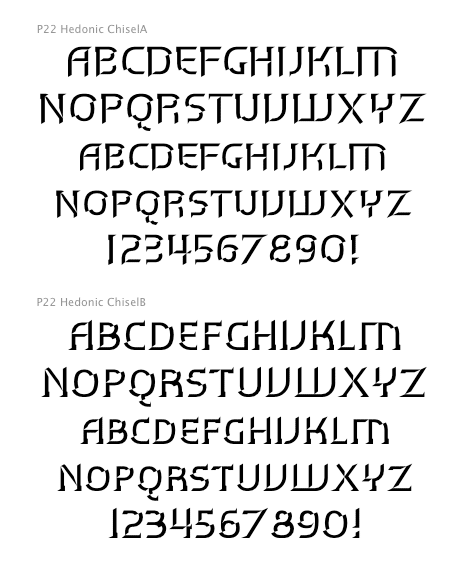
Hedonic Chisel Set (3 fonts) (International House of Fonts)
Hedonic has just a hint of a slab serif and even that is used so sparingly that it almost feels like a sans serif font.It's design does appear to be painfully simple but there are many interesting features including a selection of weights,small caps with old style numerals and display weights that make it very useful.And legible.The lower case small caps match the x height of the roman weights and the caps are 75% of the cap height – providing three different evenly weighted caps heights to take advantage of.Old style numerals are included with the small caps and italics. The Black Caps are extremely heavy and only meant to be used for display purposes.Also for display purposes are two "Chisel" fonts.Used together, set one on top of the other, they create a stylish 3d effect-- ideal for logos and headlines or anything that needs a strong graphic punch.Hedonic may not be as eccentric many fonts out there but overall it is clean and legible with a few extra flourishes to stand out from the crowd!FONTHAUS END USER LICENSE AGREEMENT